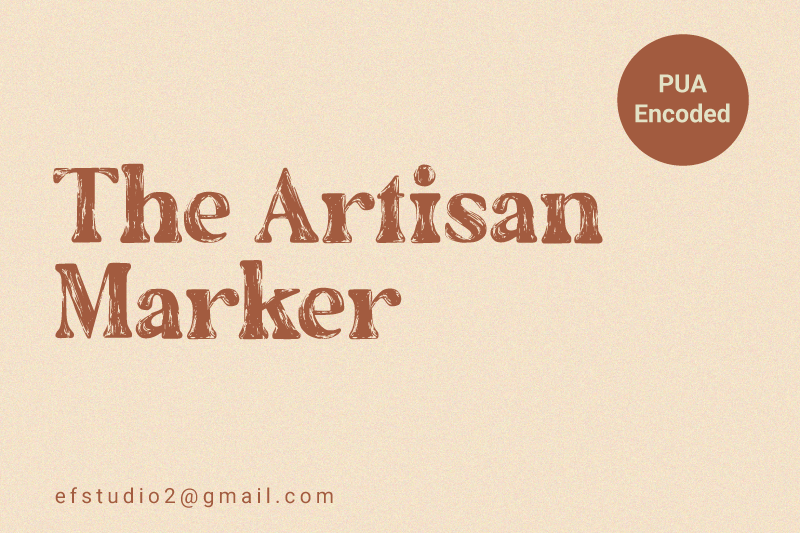
The Artisan Marker
The Artisan Marker font, crafted by Ef Studio, is an exquisite handwritten serif typeface that marries the charm of hand-drawn text with the sophistication of serifs. This unique font delivers a sense of individuality and warmth, making it perfect for creative projects that desire a personal touch. The letterforms exude an imperfect and organic feel, reminiscent of careful sketches made with an artisan’s marker, offering a blend of elegance and authenticity.
Each character in The Artisan Marker font features subtle irregularities that mirror the natural variability of handwriting, adding depth and personality to the text. The serifs are noticeable but not overpowering, complementing the handwritten style rather than overshadowing it. This delicate balance ensures readability while maintaining the distinct, handcrafted vibe essential for designs that aim to stand out.
The versatility of The Artisan Marker font makes it suitable for a wide array of applications. From branding and logo design to invitations and social media graphics, this typeface adds a human element that resonates with audiences seeking authenticity. It captures the spirit of hand-lettering without sacrificing the professionalism and structure provided by serif fonts.
Additionally, the font includes numerals and a range of punctuation marks, ensuring comprehensive usability across different design needs. This makes The Artisan Marker a valuable addition to any designer’s toolkit, offering the perfect blend of heart and finesse.